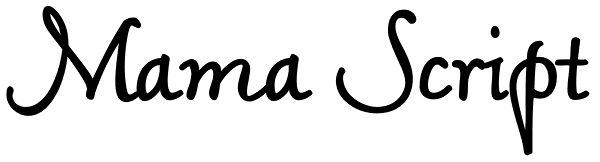
Mama Script
Initially an experiment in vertical calligraphy, Mama Script was developed by drawing on multiple sources of inspiration. These range from simple swashy handwriting, lettering and signage, to the works of renowned calligraphers. This script likes to...